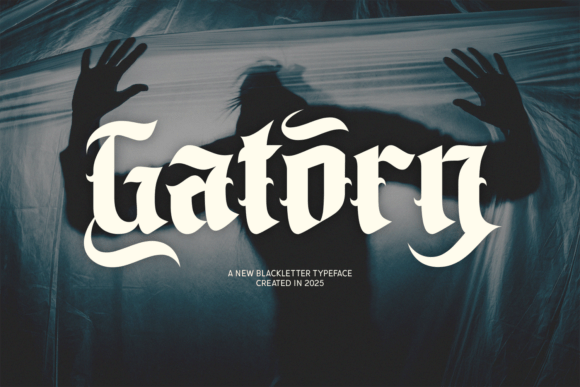
Gatorn Font: The Modern Blackletter Typeface for Edgy Designs
In the world of typography, font styles play a crucial role in conveying the tone and aesthetic of a design. For projects that require a bold, edgy, and atmospheric feel, the Gatorn Font is an excellent choice. This modern blackletter typeface, set to make its mark in 2025, is specifically designed to add a touch of gothic charm to posters, branding, and media with a thriller or horror theme.
A promotional image for “Gatorn,” a new blackletter typeface from the year 2025.
The Inspiration Behind Gatorn Font
The Gatorn Font draws inspiration from traditional blackletter typefaces, but with a modern twist. Its design is rooted in the gothic style, characterized by intricate and dramatic letterforms. However, unlike classic blackletter fonts, Gatorn features clean lines, sharp edges, and a bold presence that makes it stand out in any design.
Key Features of Gatorn Font
- Modern Gothic Style: Gatorn combines the mystique of gothic typography with a contemporary edge, making it perfect for designs that need a touch of darkness and intrigue.
- Edgy and Atmospheric: The font’s design elements are crafted to evoke a sense of mystery and tension, ideal for posters, branding, and media in the thriller or horror genres.
- Versatile Usage: Gatorn is not limited to specific types of projects. It can be used in various applications, from movie posters and book covers to social media graphics and website headers.
- User-Friendly: Despite its complex appearance, Gatorn is designed to be easy to read and use, making it accessible for designers of all skill levels.
Applications of Gatorn Font
Gatorn’s unique style makes it suitable for a wide range of applications. Here are some of the most popular uses for this versatile font:
1. Movie and TV Posters
The entertainment industry often requires typography that can convey drama and excitement. Gatorn’s bold and gothic style is perfect for movie and TV posters, especially for genres like horror, thriller, and fantasy.
2. Book Covers
For authors and publishers, Gatorn offers a captivating way to design book covers that stand out on bookstore shelves and online platforms. Its edgy appearance is particularly effective for genres like horror, mystery, and young adult fiction.
3. Branding and Logo Design
Gatorn can also be used in branding and logo design for businesses that want to convey a strong, bold image. Companies in the fashion, entertainment, and tech industries can benefit from the font’s modern yet gothic aesthetic.
4. Social Media Graphics
Social media is a highly visual platform, and using the right typography can make a significant difference in engaging your audience. Gatorn’s unique style can help create eye-catching graphics for social media posts, especially for content related to horror, thriller, or mystery.
5. Website Headers and Banners
Web designers can use Gatorn to create striking headers and banners that set the tone for a website. This is particularly effective for websites focused on entertainment, media, or lifestyle content that wants to make a bold statement.
How to Use Gatorn Font Effectively
To get the most out of Gatorn Font, consider the following tips:
- Pair with Complementary Fonts: Gatorn works well when paired with simpler fonts that can balance out its bold style. Consider using sans-serif fonts for body text to create contrast.
- Experiment with Colors: While Gatorn looks great in traditional black and white, don’t be afraid to experiment with bold colors to enhance its gothic appearance.
- Use in Large Sizes: For maximum impact, use Gatorn in large sizes, especially for headlines and titles. This will allow its intricate details to shine.
- Consider the Context: Make sure that the overall design aligns with the font’s edgy style. Gatorn is perfect for projects that require a dramatic and intense feel.
The Gatorn Font is set to become a go-to choice for designers looking to add a modern, edgy touch to their projects. Its unique blend of gothic and contemporary styles makes it versatile and powerful, suitable for a wide range of applications from posters and branding to social media and web design. As we approach 2025, Gatorn is poised to leave a lasting impact on the world of typography.